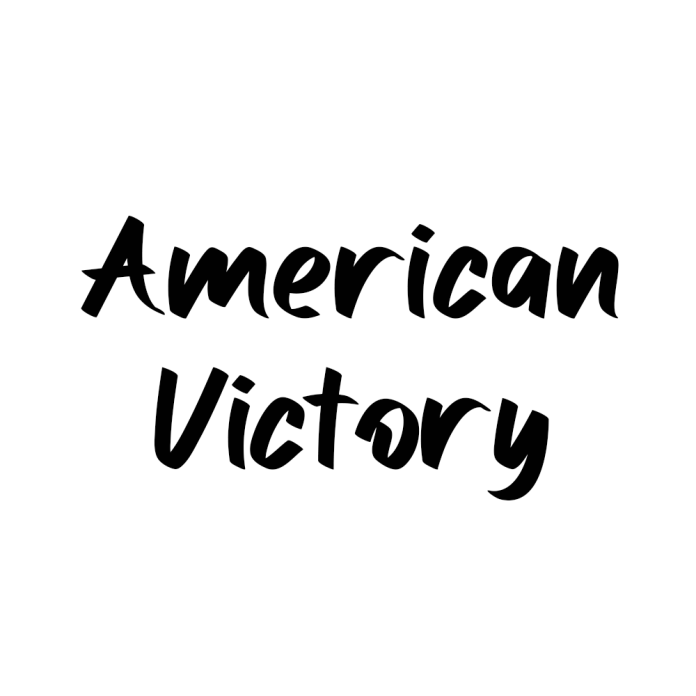
American Victory Font is a stylish and incredibly elegant script font. It looks stunning on wedding invitations, thank you cards, quotes, greeting cards, logos, business cards and every other design which needs a handwritten touch.